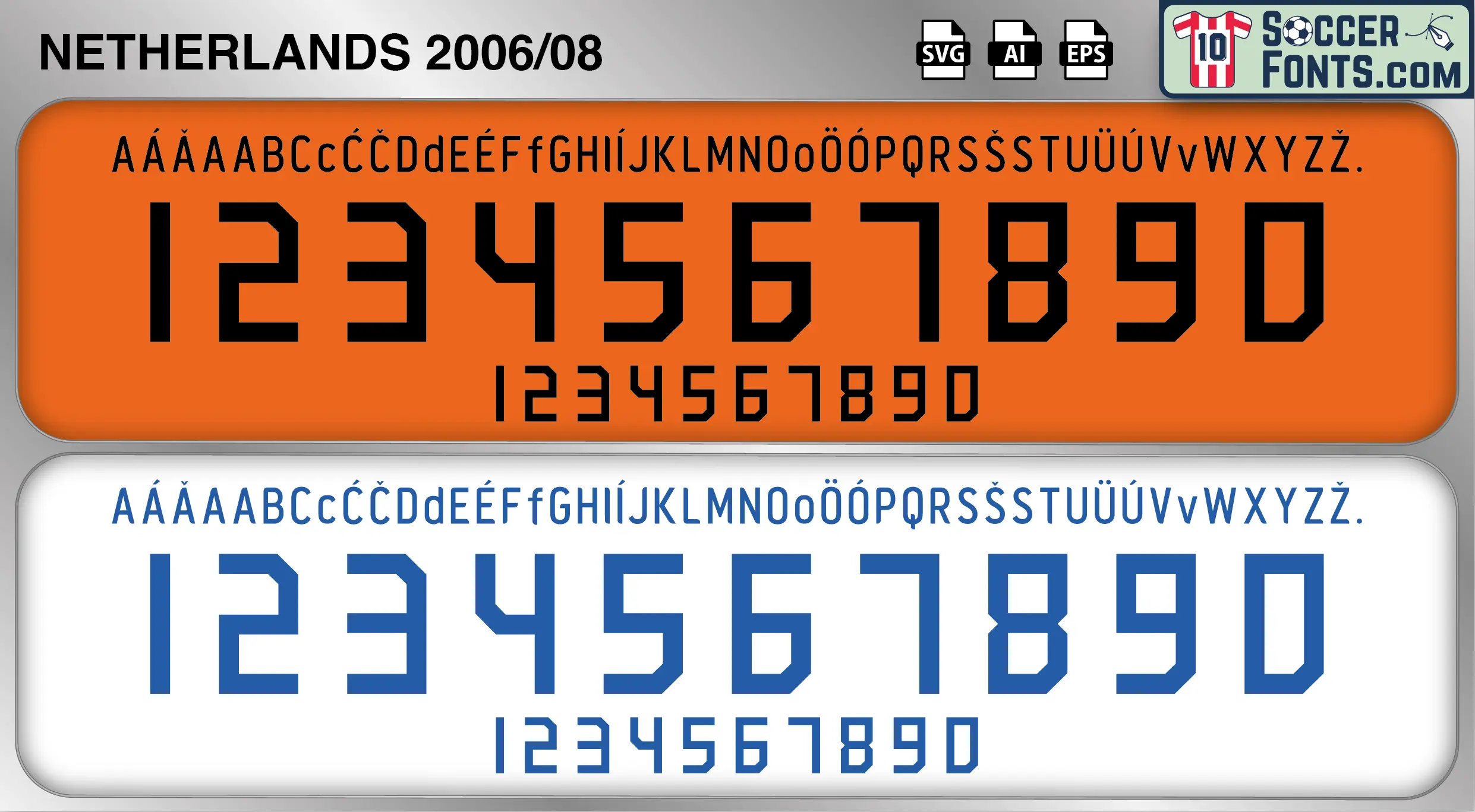
Netherlands 2006-08 Font
The Netherlands 2006-08 font is an editable soccer jersey lettering design in vector format inspired by the Netherlands kit style used during the 2006-08 football seasons. This football font artwork is prepared for football shirt recreations, custom jersey projects, football kit mockups and sports graphic design workflows.
The 2006-08 period began with the Netherlands competing at the 2006 FIFA World Cup in Germany, a tournament remembered for its intensity and several memorable matches involving the Dutch national team. The squad featured a blend of established stars and emerging talents, including Ruud van Nistelrooy, Arjen Robben, Robin van Persie, Wesley Sneijder, Rafael van der Vaart, Edwin van der Sar and Giovanni van Bronckhorst. Dutch football continued to be admired for its technical quality and attacking philosophy, while a new generation of players gradually took center stage. The national team remained one of Europe’s strongest sides and entered every major competition with ambitions of challenging for international honors.
The Netherlands 2006-08 font became associated with the years following the 2006 World Cup and the development of a squad that would soon become one of the most exciting teams in international football. During this era, Robben, Sneijder and Van Persie established themselves as key figures for both club and country, forming the foundation of future Dutch success. Netherlands shirts from this period remain popular among football shirt collectors because of their connection with a generation that combined flair, creativity and technical excellence. The Netherlands 2006-08 font reflects a period of transition and growth as Dutch football prepared for another major tournament cycle while maintaining its distinctive football identity.